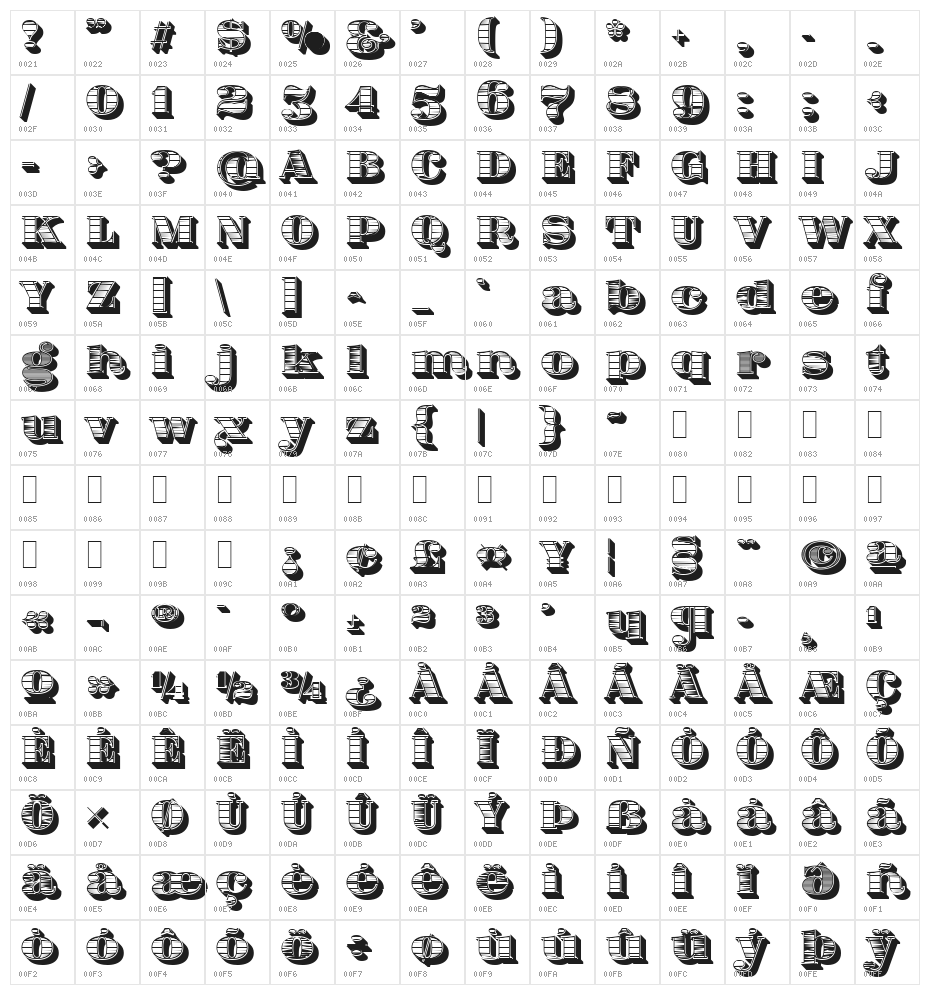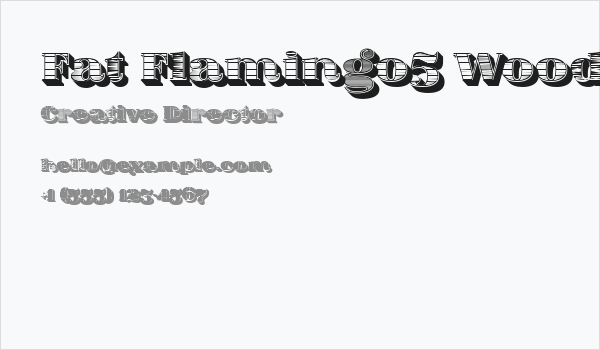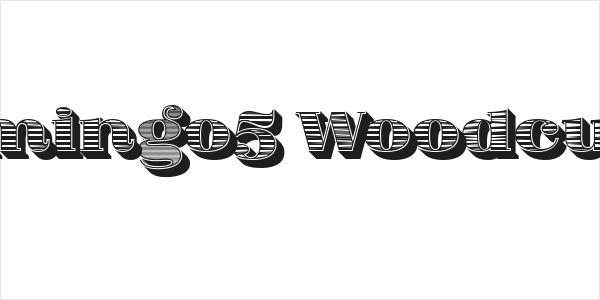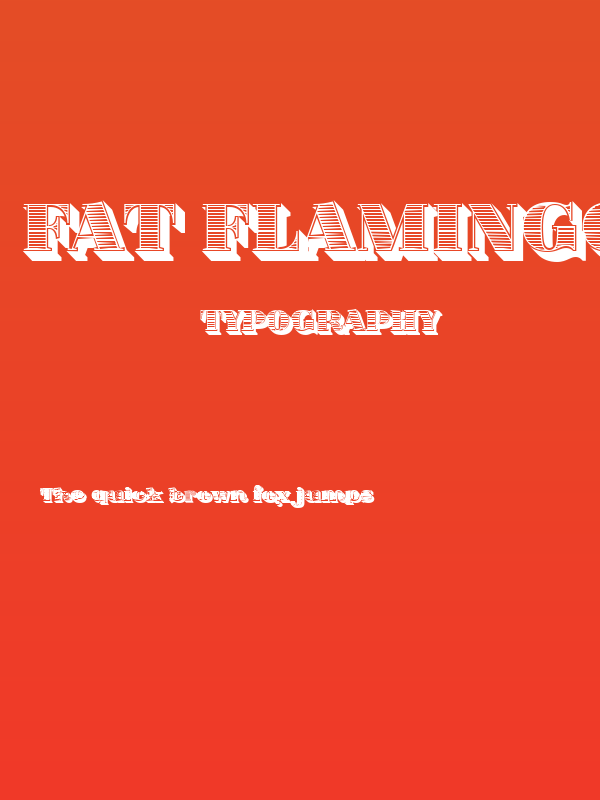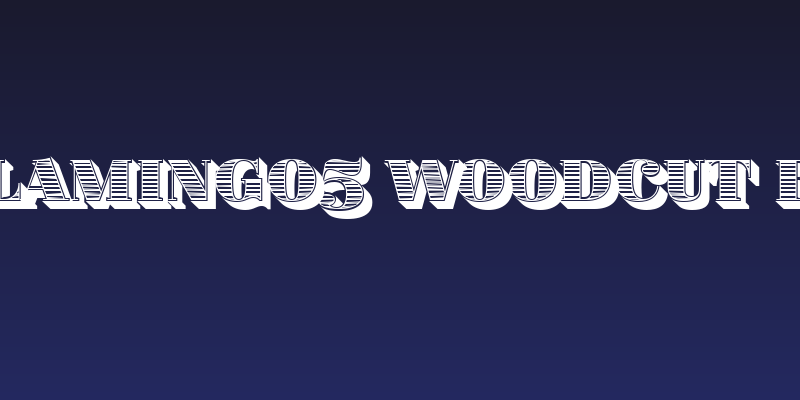
Fat Flamingo5 Woodcut Black Font
Fat Flamingo5 Woodcut Black Description
This font features a bold, three-dimensional appearance with a woodcut style that gives it a distinct, textured look. The letters are characterized by thick strokes and a shadow effect that adds depth and dimension. The uppercase and lowercase letters maintain a consistent style, with the uppercase being more pronounced. Numbers and special characters are also included, following the same bold and textured design. The font's unique style makes it stand out, suitable for projects that require a strong visual impact.
| Proposed Projects | Ideal for posters, headlines, branding, and any project needing a strong, eye-catching typeface. |